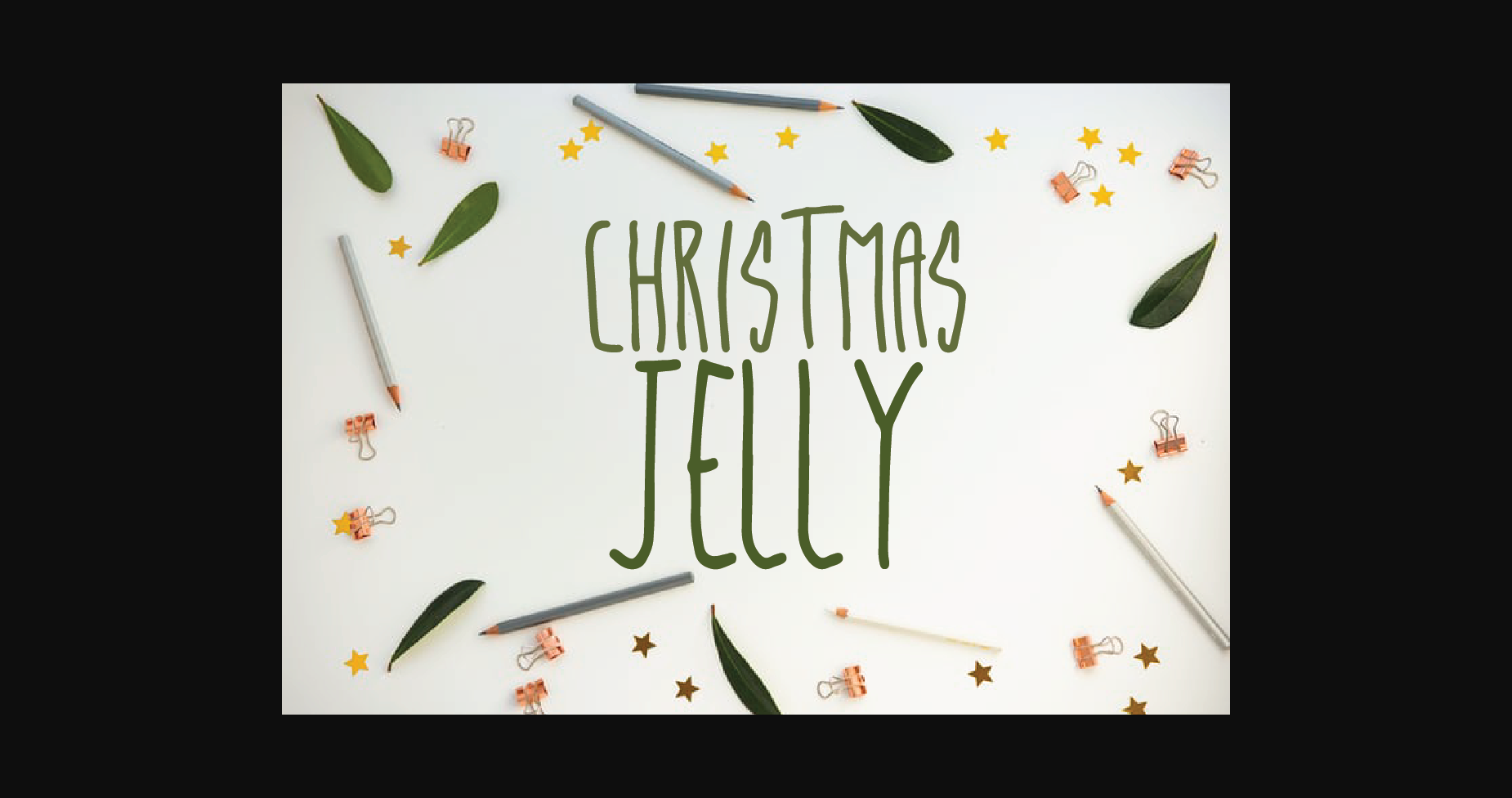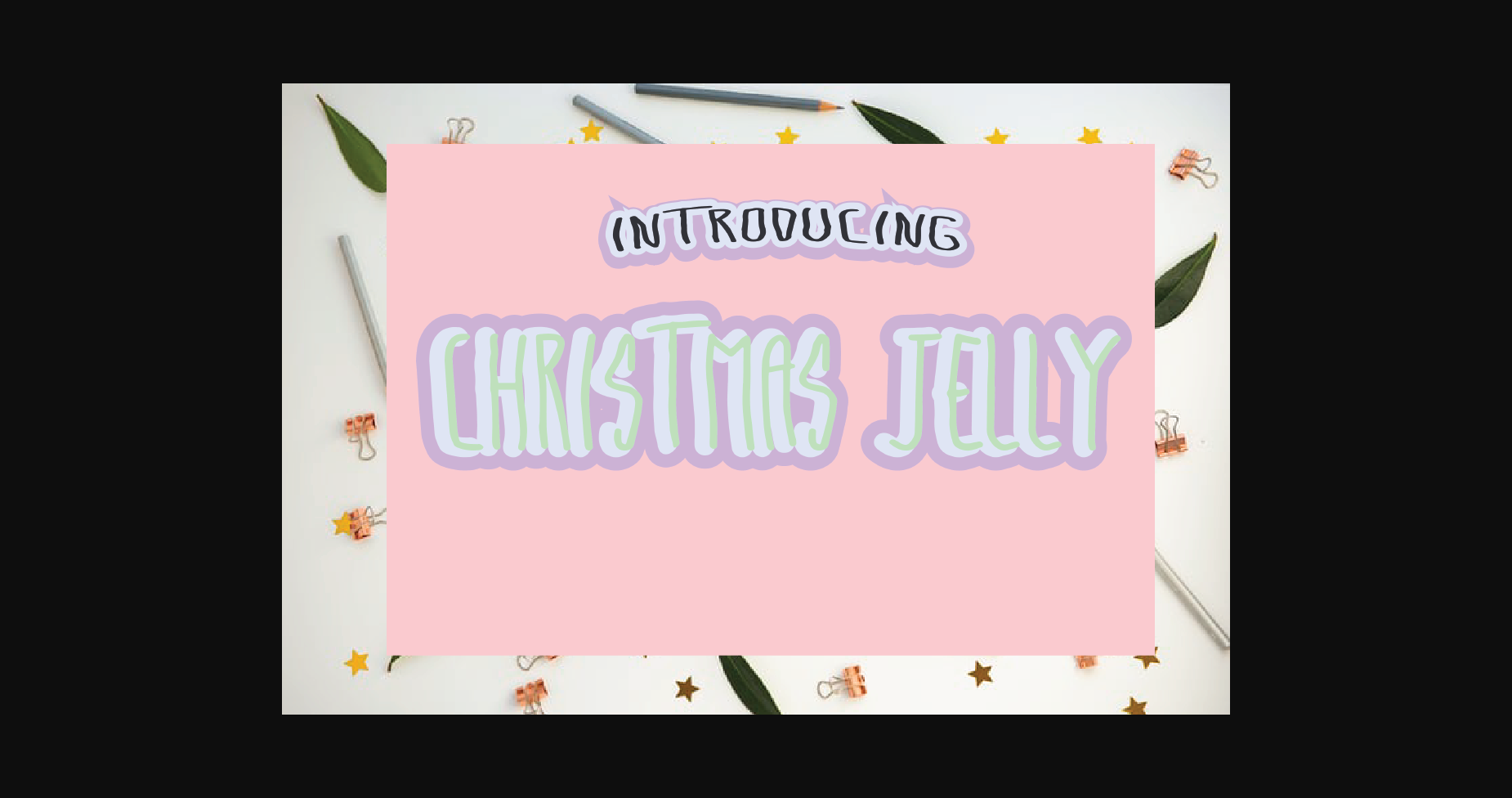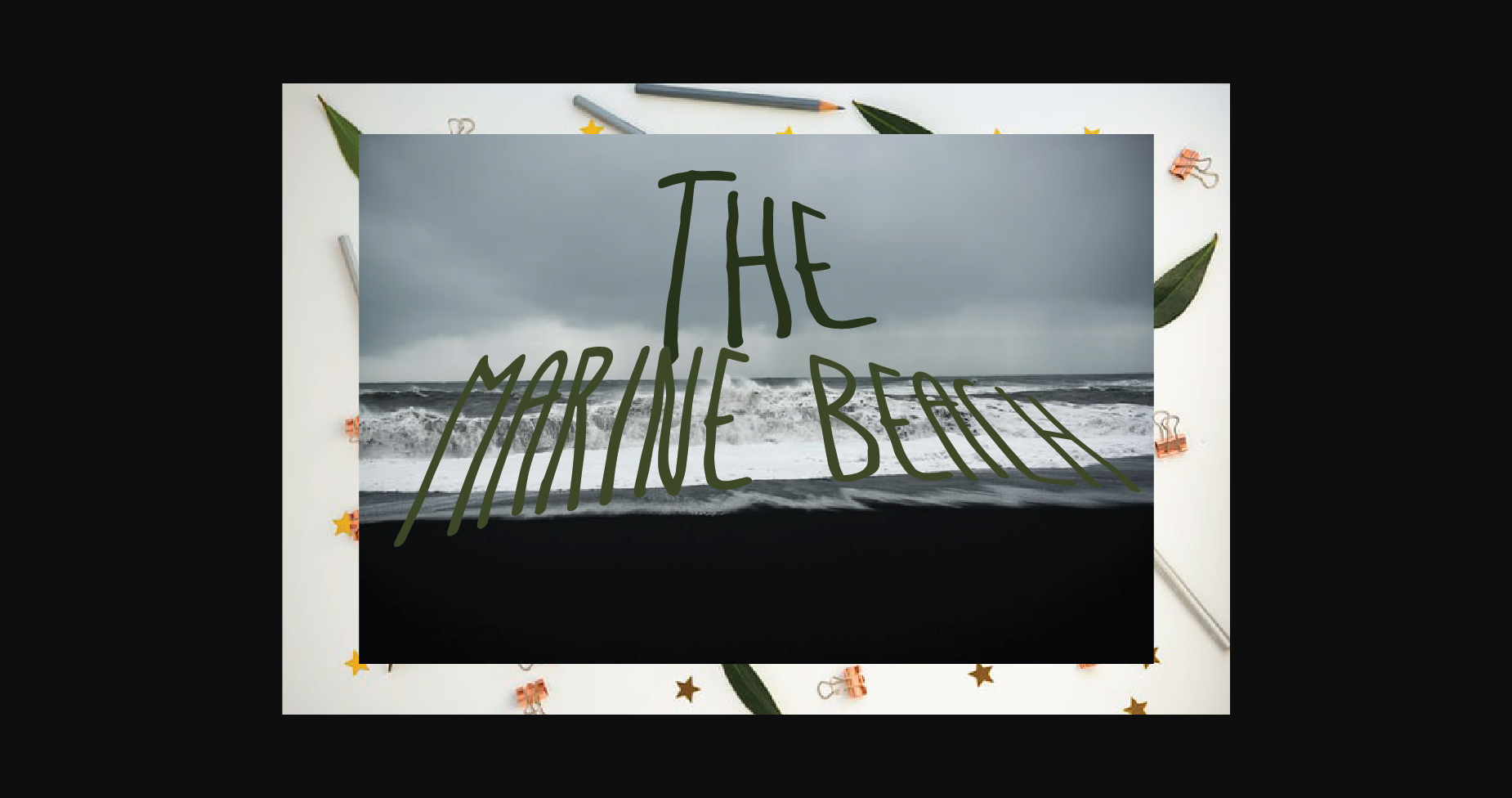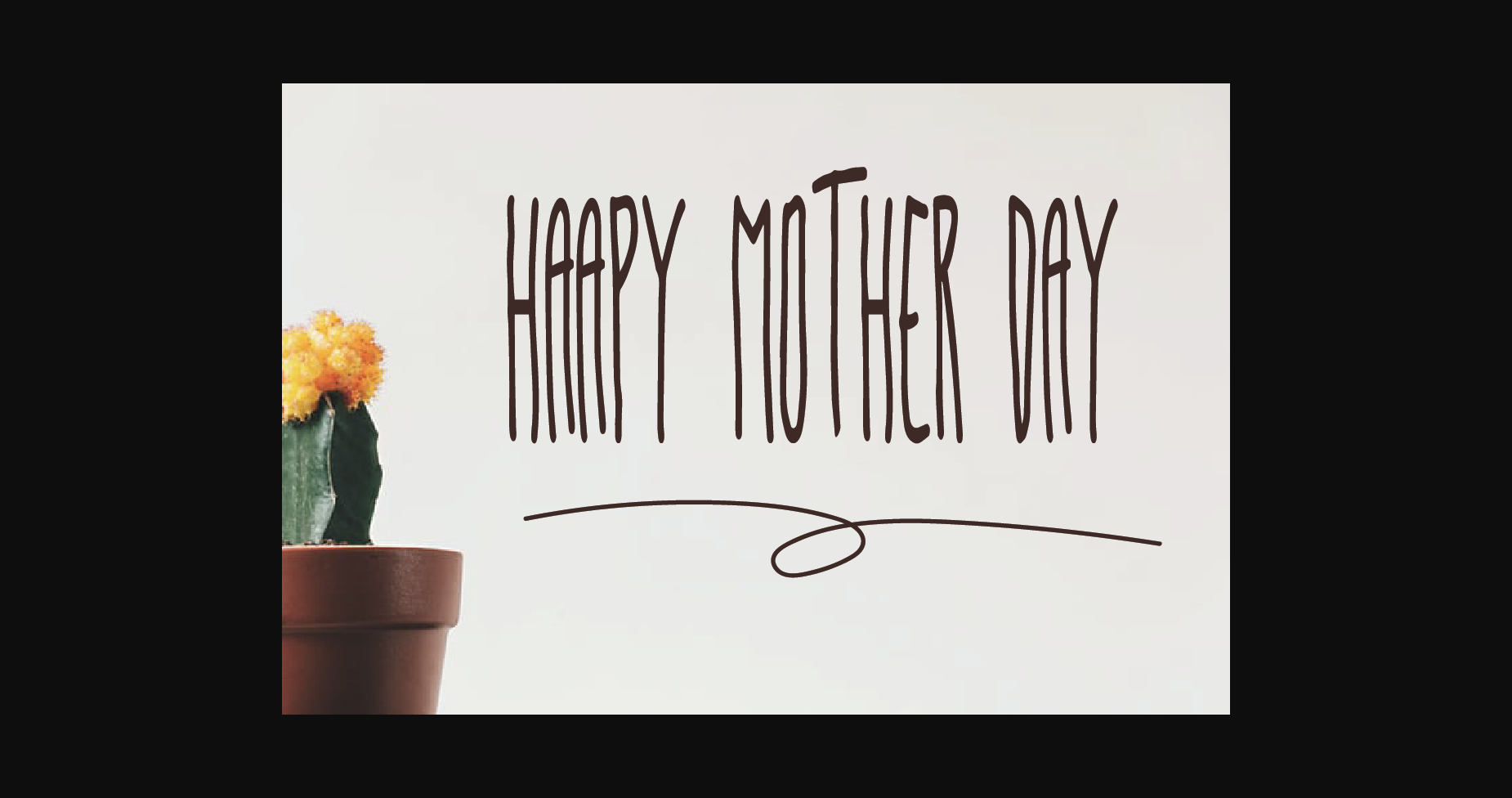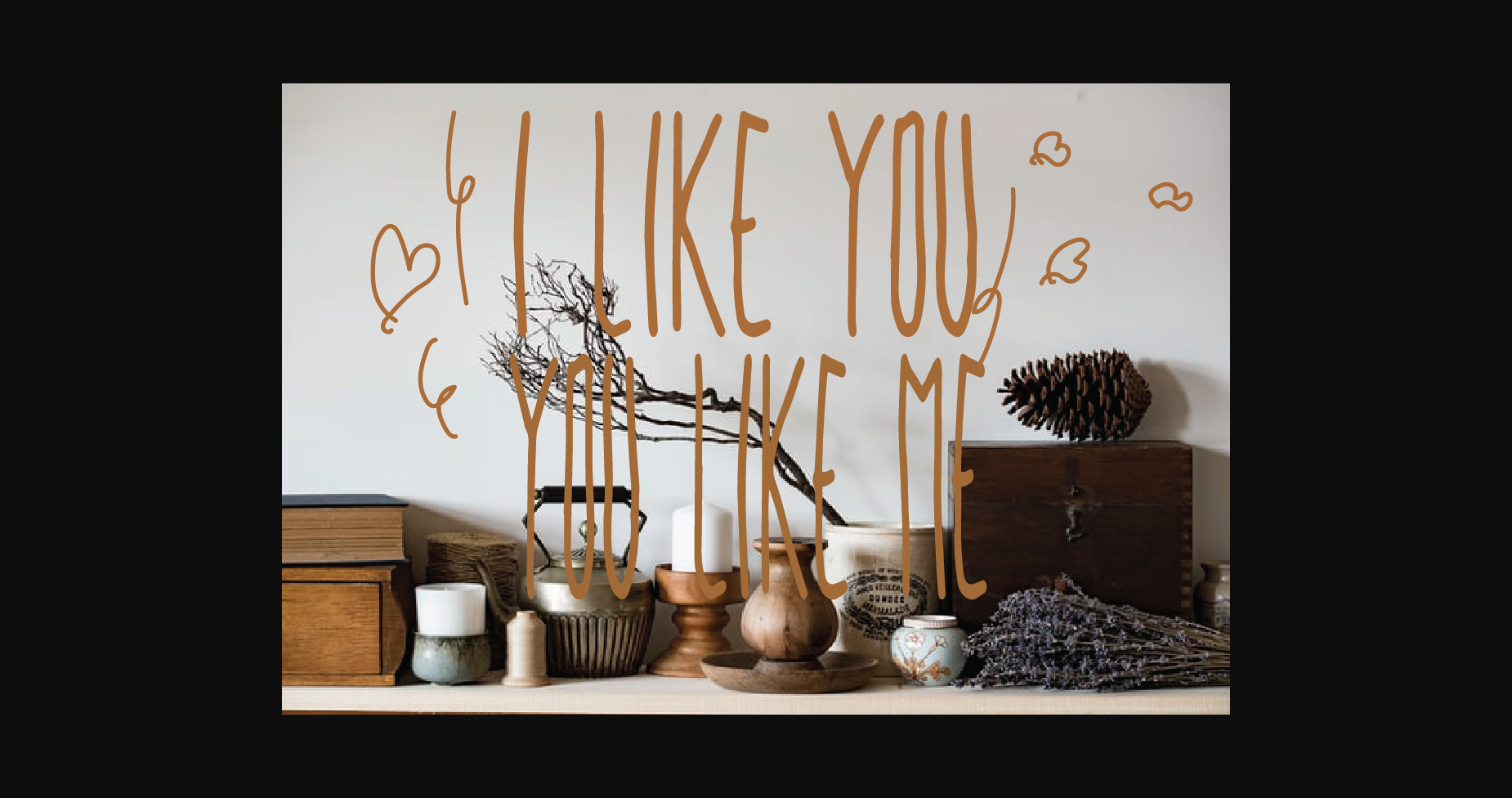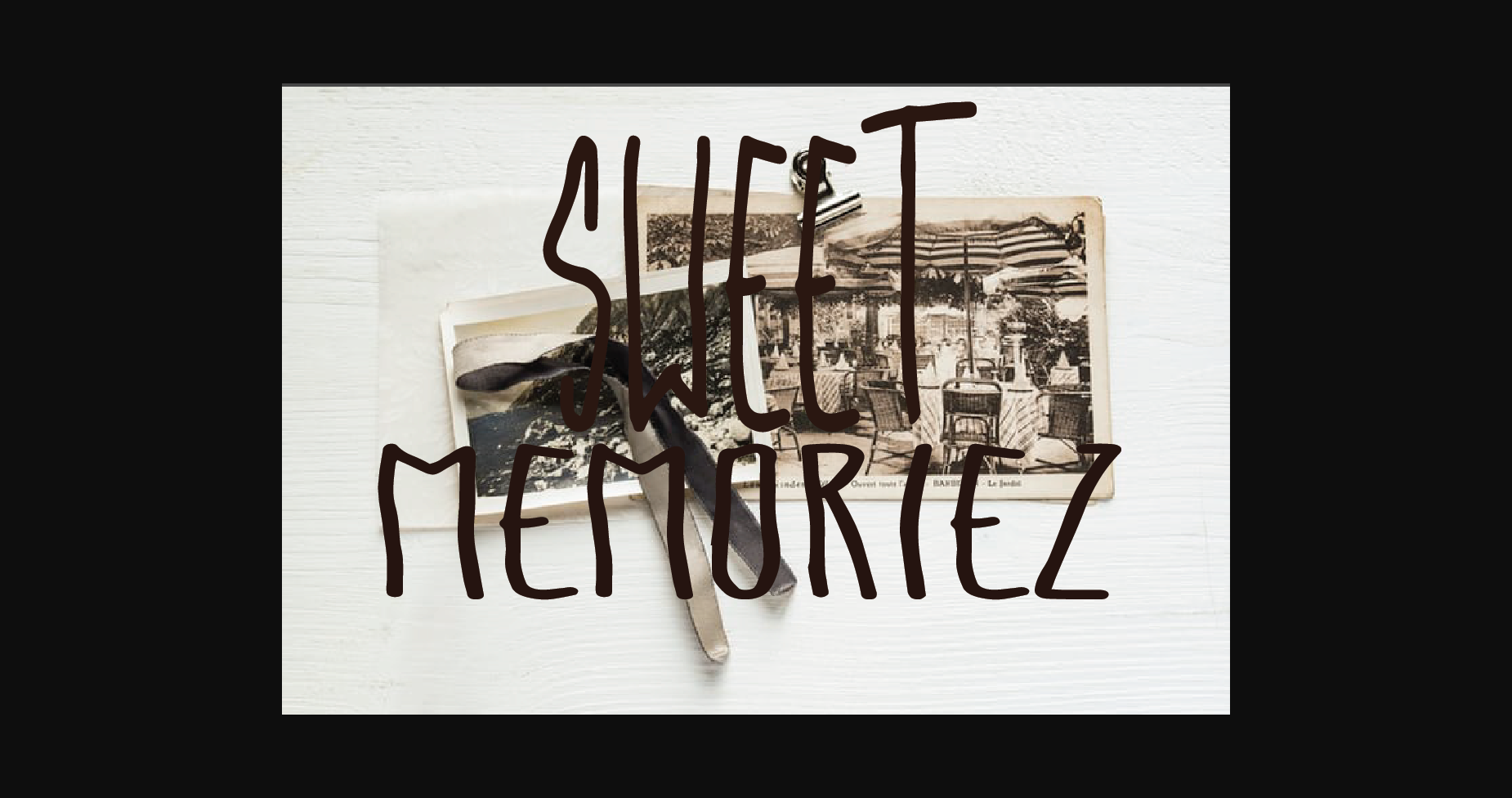
About Christmas Jelly Font
Christmas Jelly is a simple and minimalist sans serif font that will look amazing on your creative ideas! Use it for product packaging, branding, banners, marketing materials, social media posts, or other creations that need inviting typography.